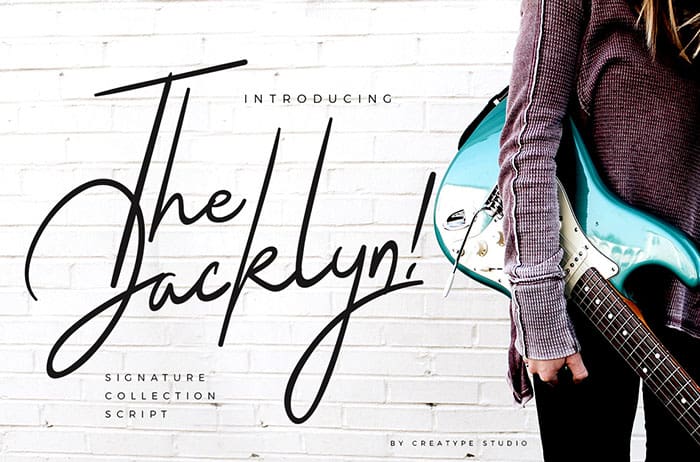
The Jacklyn signature font is a modern and styling font which perfect for branding, logo, photography, and signature. It is so elegant, classy, strong, and beautiful. Thanks to Creatype Studio for sharing this font! Take a look at this portfolio for more of his stunning fonts.